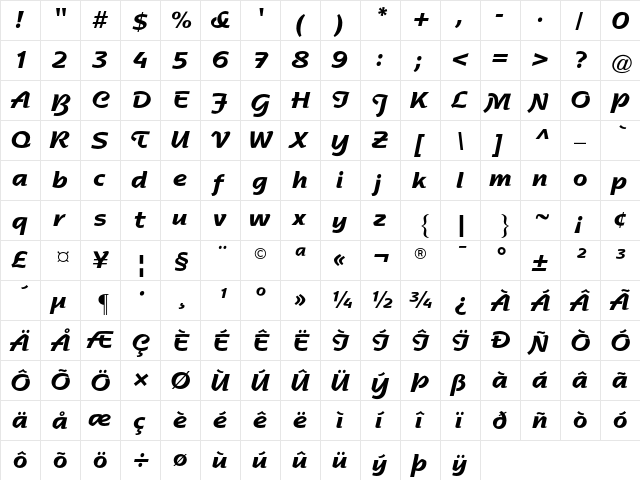
Nadianne AT Bold Regular
Design Context for Nadianne AT Bold Typeface
Nadianne AT Bold takes a measured approach to typography — its balanced proportions and neutral character make it a reliable workhorse for both digital and print work. Its bold stroke weight gives it real presence on the page.